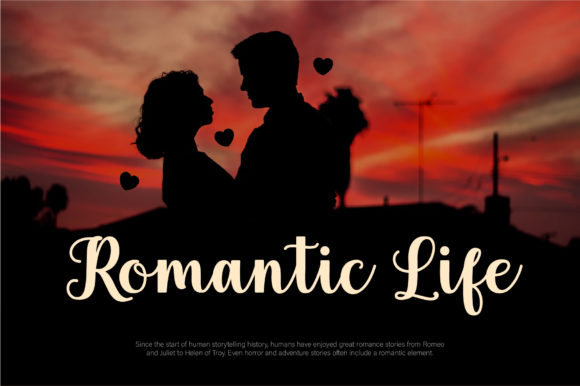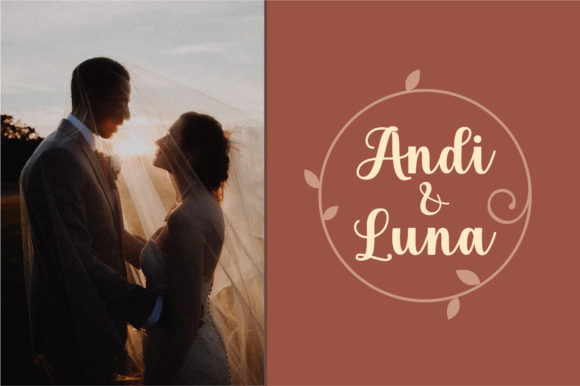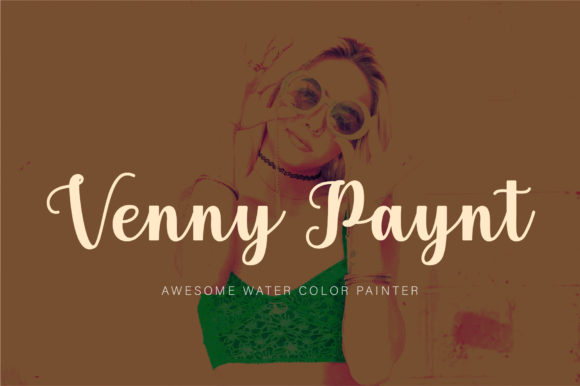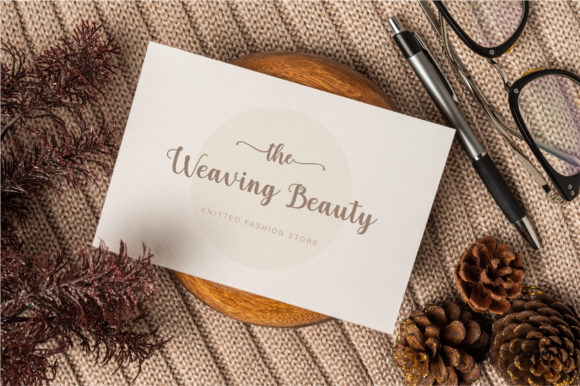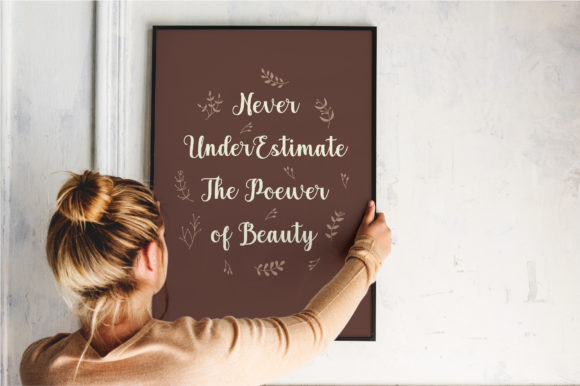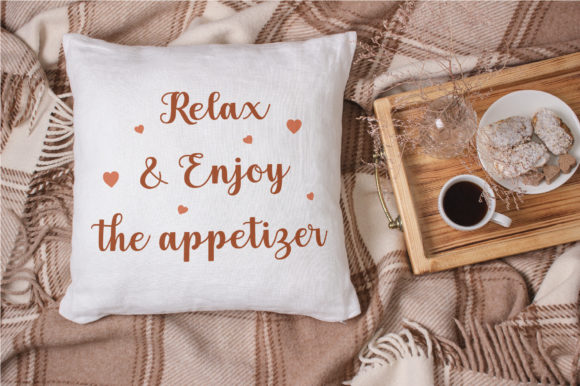
Introduction to Holysthic Font
As a designer, you know the thrill of discovering a new font that perfectly captures the essence of your creative vision. It’s like stumbling upon a hidden treasure, a game-changer that elevates your project from ordinary to extraordinary. For many of us, that moment came when we laid eyes on the Holysthic Font – an elegant, handwritten font that exudes a sense of high-quality craftsmanship.
With its thick body and casual, down-to-earth look, Holysthic Font is the perfect design resource for any creative project. Whether you’re working on a brochure, a website, or a social media campaign, this versatile font is sure to make your content stand out. Its PUA encoding allows for easy access to all glyphs and swashes, making it a breeze to customize and fine-tune your design. And the best part? It’s available for free download, complete with a transparent background that lets your creativity shine through.
- Unique, modern design style that sets it apart from other fonts, making it perfect for designers looking for a distinctive touch.
Honest Review: Holysthic Font
I recently came across the Holysthic Font and I must say, it’s been a game-changer for my design projects. As a designer, I’m always on the lookout for high quality design resources that can elevate my work and the Holysthic Font does just that.
One of the things that stands out about this font is its clean and minimalist aesthetic. It’s perfect for any creative project that requires a touch of sophistication and elegance. The transparent background makes it easy to customize and integrate into any design.
- ⚠️ Some users may find the font a bit too minimalist, lacking in personality
Overall, I’m really impressed with the Holysthic Font and I would highly recommend it to any designer looking for a high quality design resource. With its clean aesthetic and transparent background, it’s perfect for any creative project. Just be aware of the limitations and you’ll be all set!
Common Use Cases for Holysthic Font
The Holysthic Font is a versatile design resource that can be used in a variety of creative projects, including:
– Brochures and flyers
– Business cards and letterheads
– Social media graphics and ads
– Web